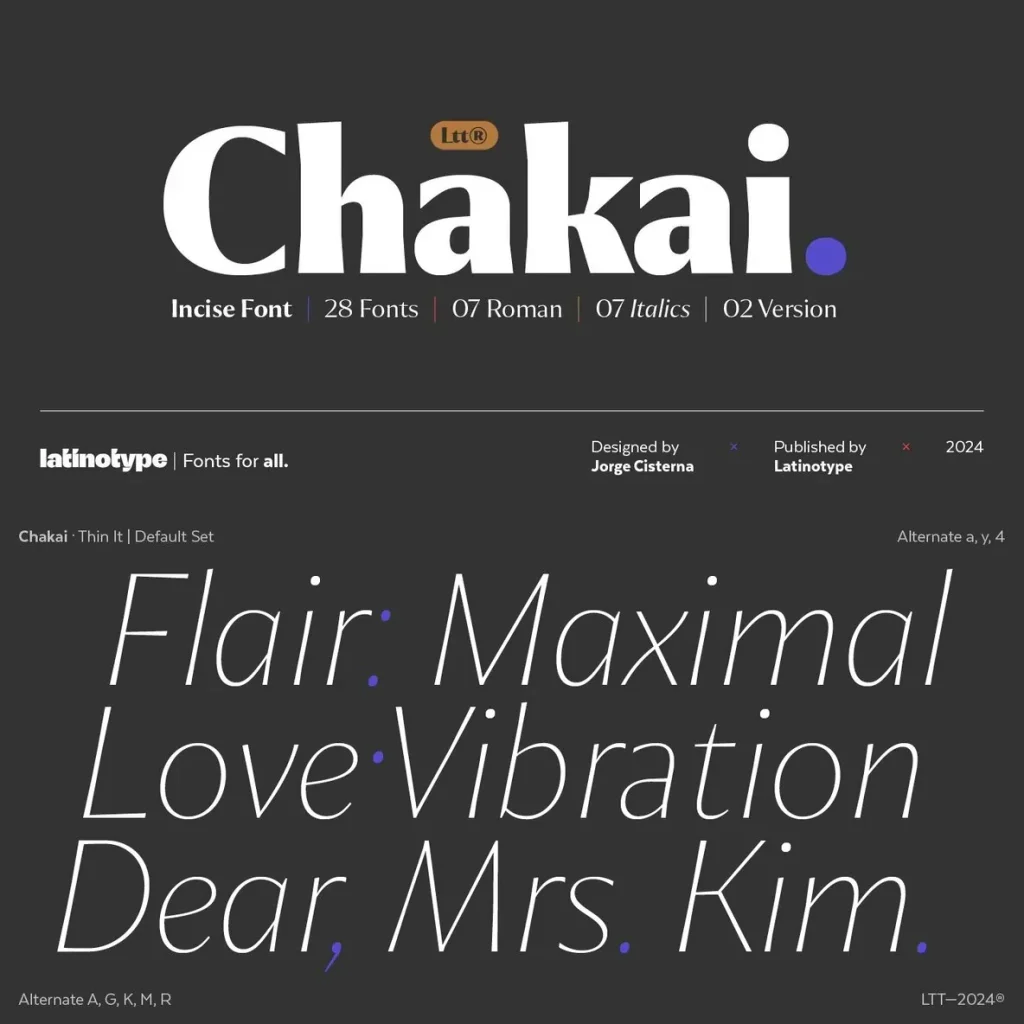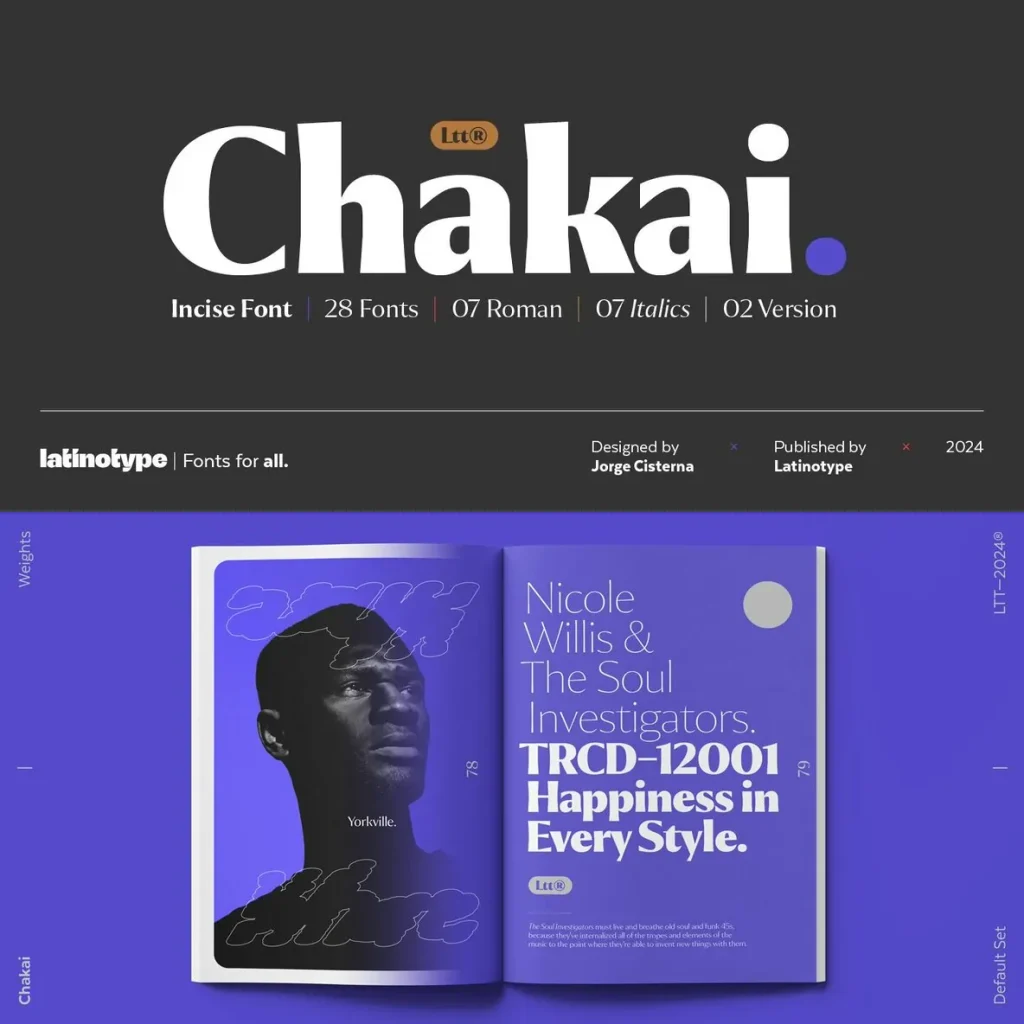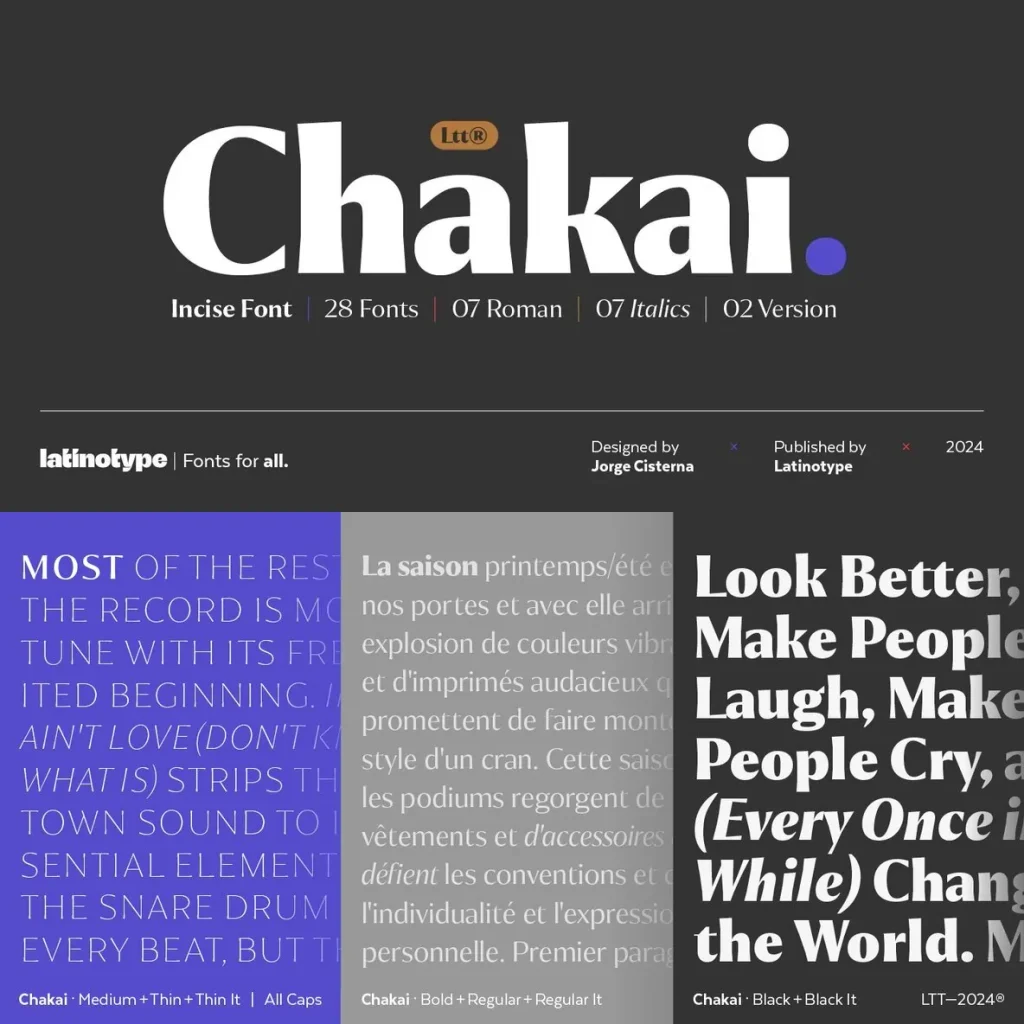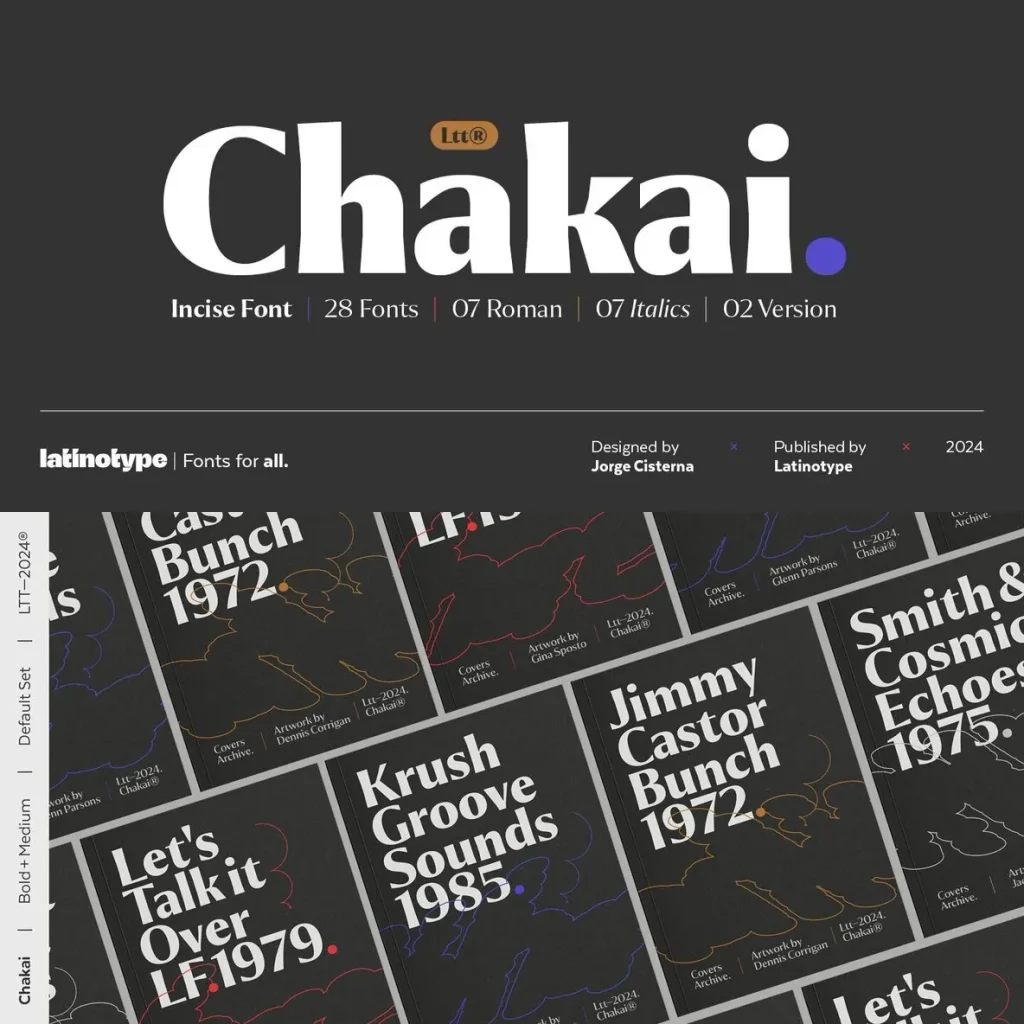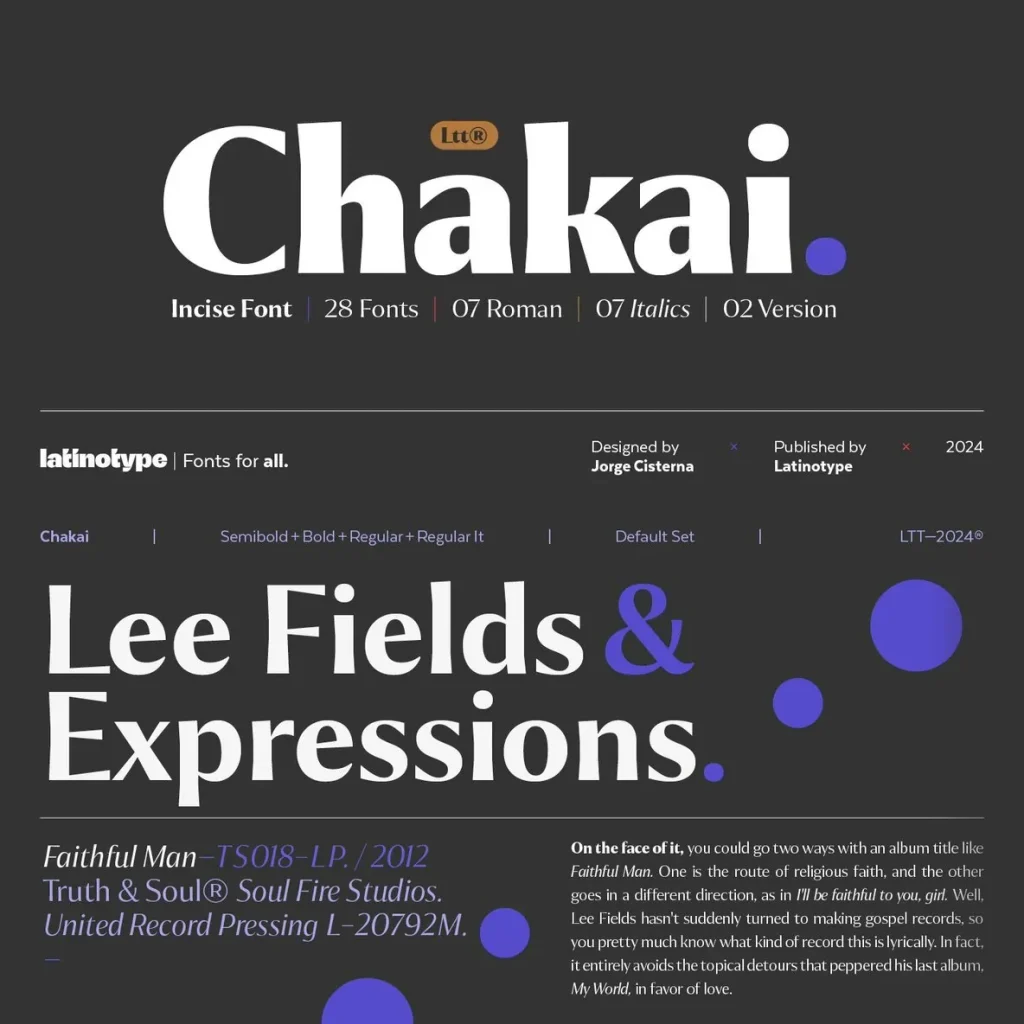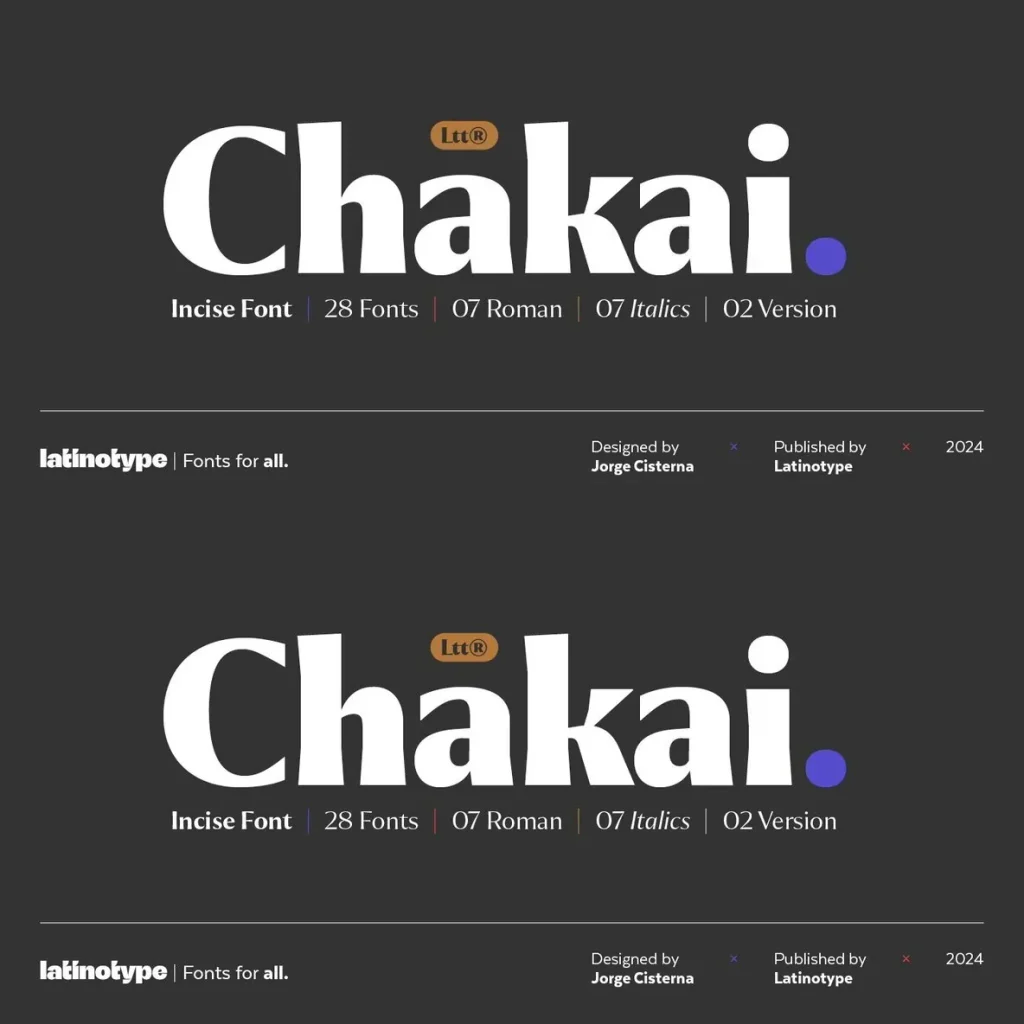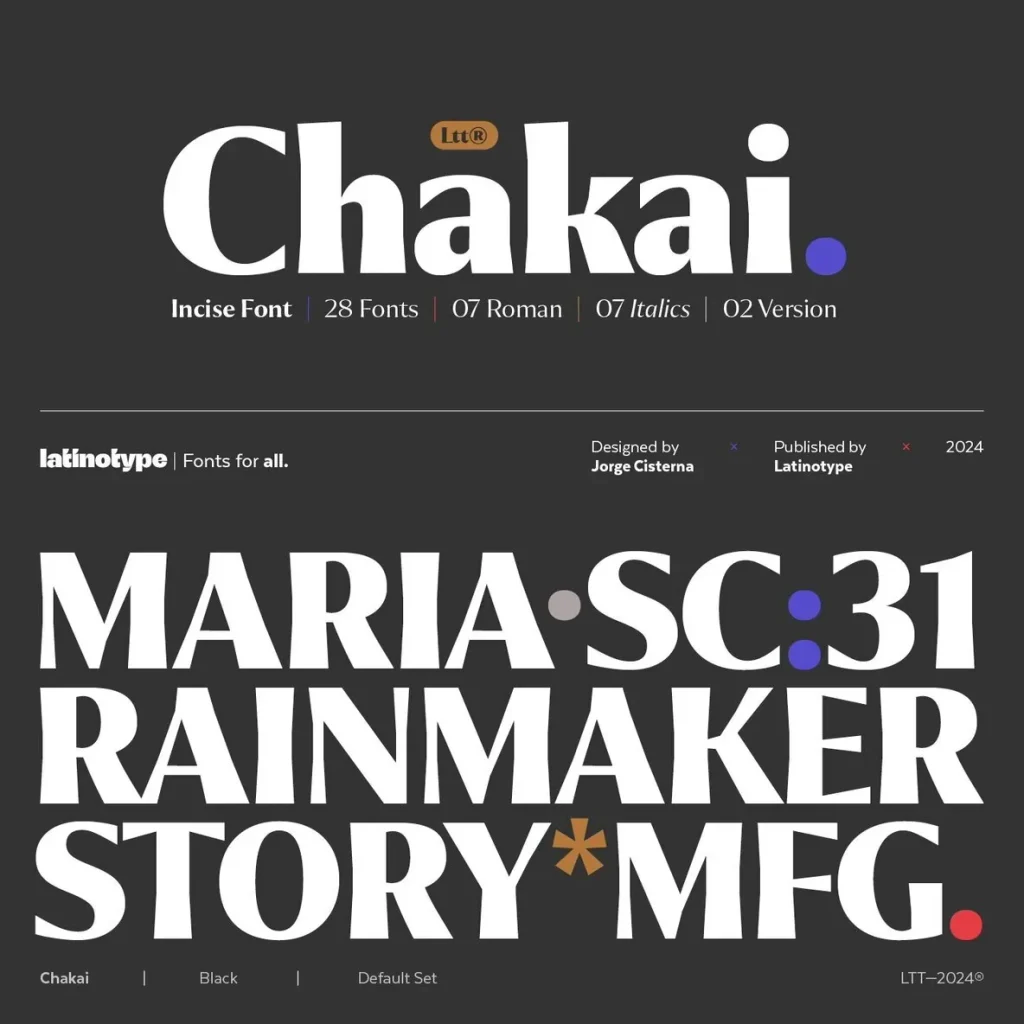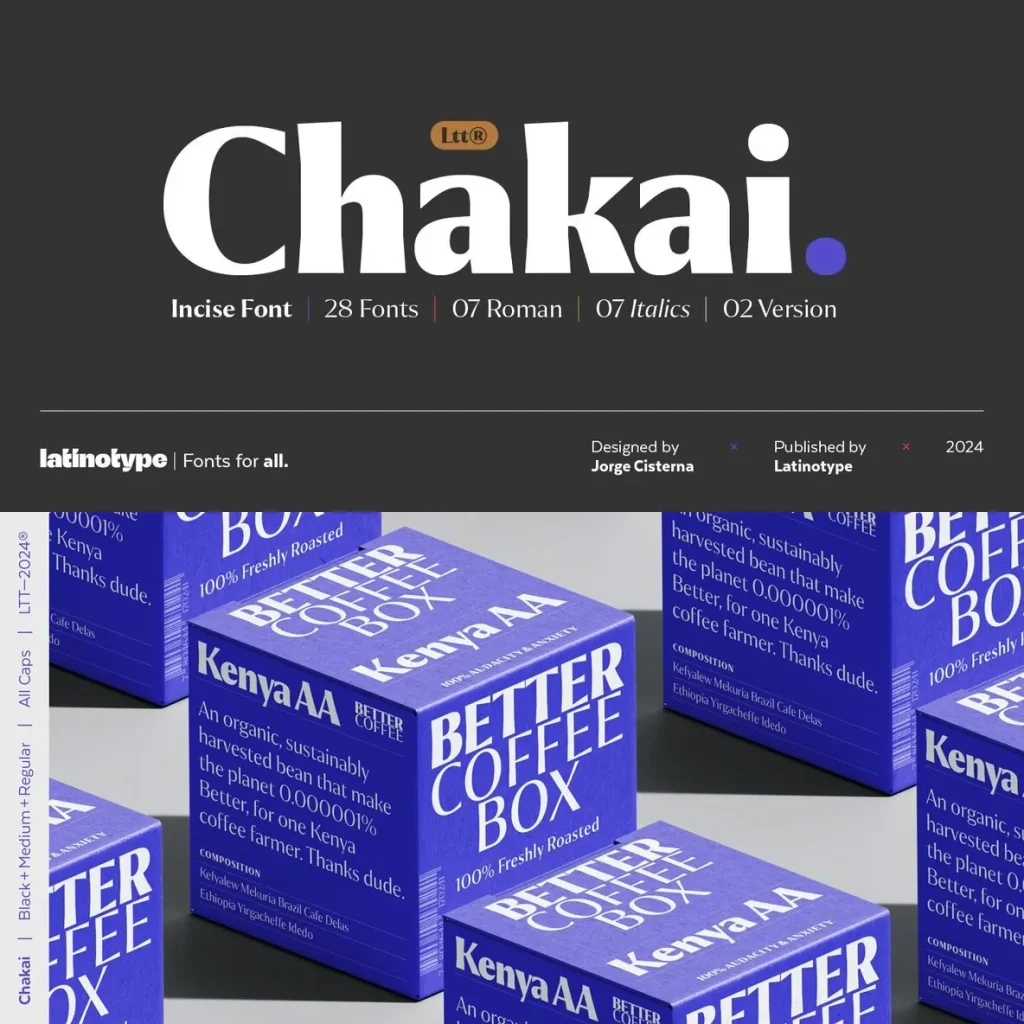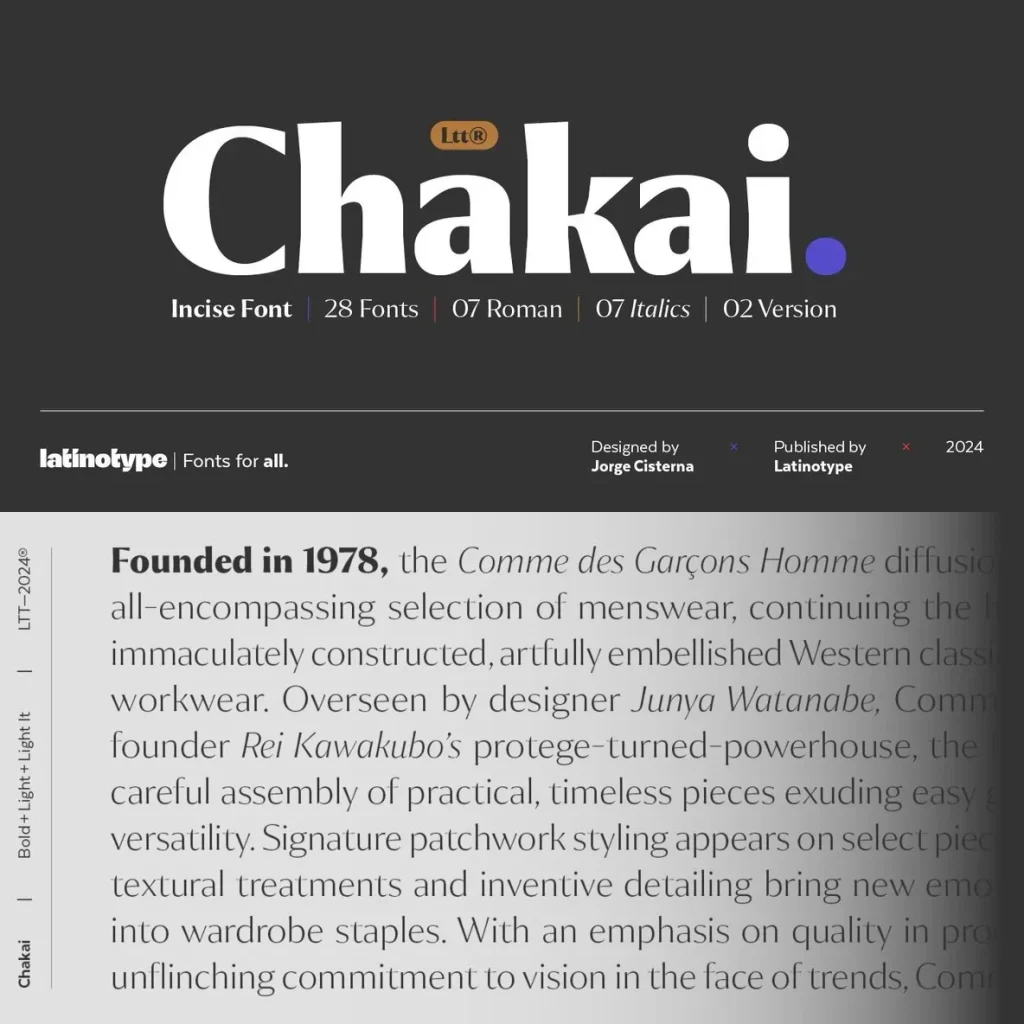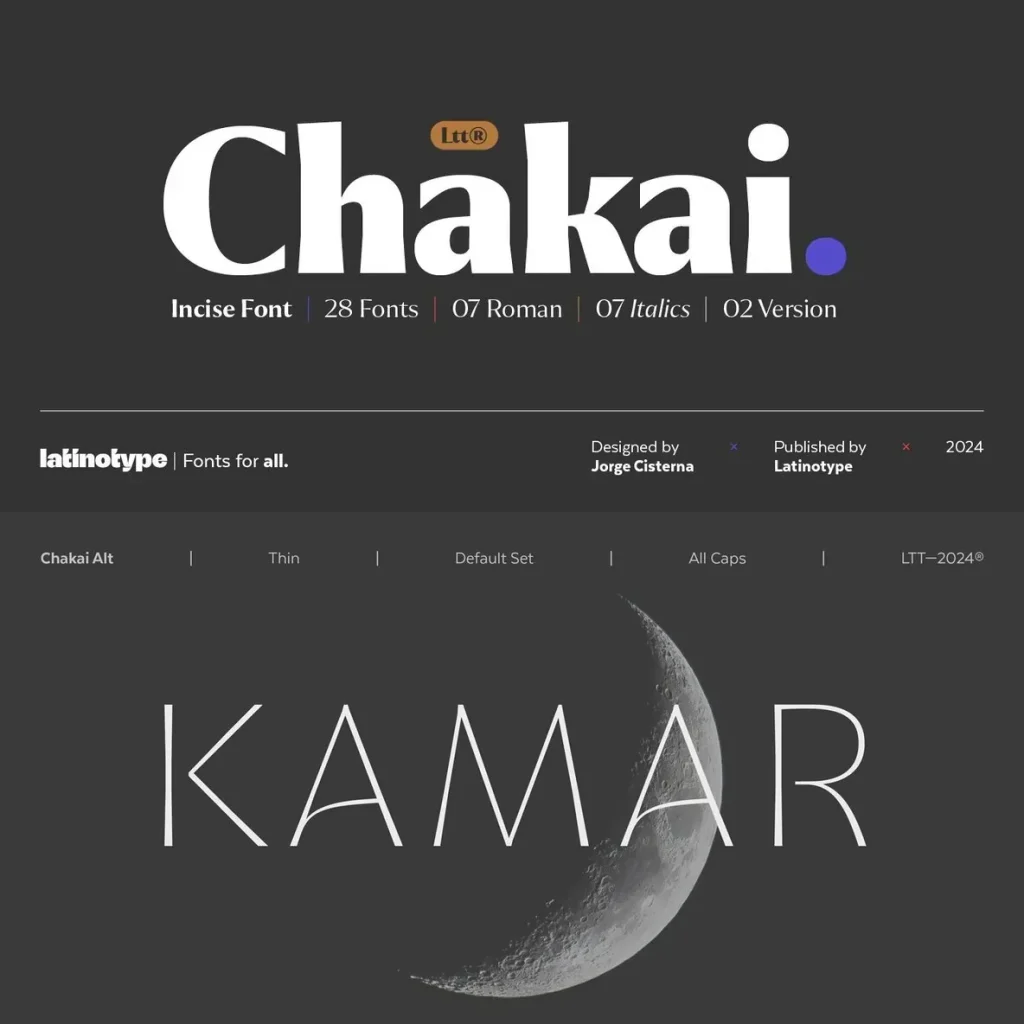
Chakai: Distinctive Typeface Blending Character with Clarity
Chakai offers a refined approach to typography, delivering a harmonious balance between brightness, subtlety, and practical usability. Each letterform is carefully crafted to ensure a poised presence—ideal for moments when your project demands both personality and precise readability.
This typeface stands out in headings, branding, editorial layouts, and any context where elegance and clarity work in tandem. Its versatility makes it suitable for a wide range of applications, from print materials to digital interfaces, while always maintaining a sense of sophistication and grace.
Key Features
Balanced design combining style and functionality
Clear letterforms for excellent readability
Elegant details suitable for editorial and branding use
Versatile for both display and text sizes